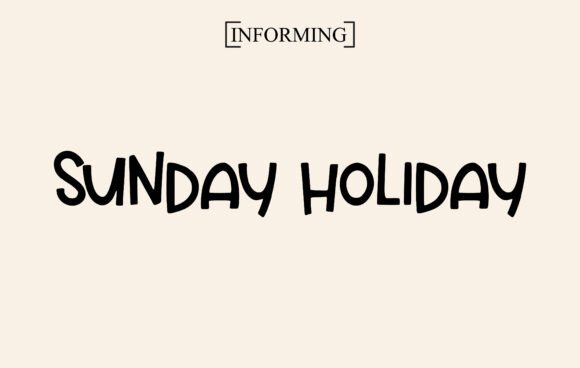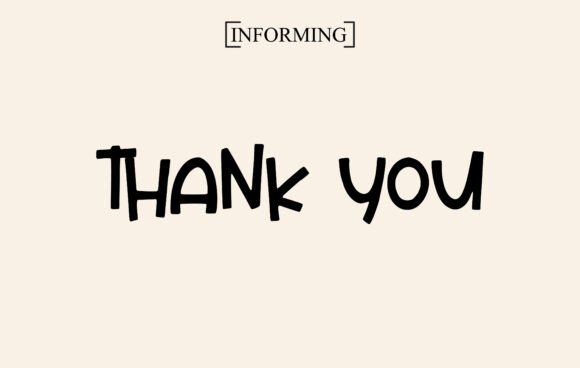
Introduction to Faithline Font
Do you remember that moment when a font perfectly captured the essence of your creative project and took it to the next level? For designers, this is a moment of pure joy and satisfaction. It’s the result of hours of brainstorming, experimenting, and searching for the perfect design resource. Today, we’re excited to introduce you to the Faithline Font, a true favorite that has the potential to elevate your creative ideas to new heights.
With its legibility and versatility, the Faithline Font is perfect for various designs, from magazine headlines to social media posts, and even wedding invitations. Its high quality and transparent background make it a valuable asset for designers looking to create stunning visual content. And the best part? You can download it for free, making it an accessible design resource for creatives of all levels.
Key Features of Faithline Font
- High-quality design resource ideal for various creative projects, including digital art and graphic design.
- Features a transparent background, making it easy to overlay on images and other design elements.
- Designed with a unique aesthetic, offering a distinctive touch to any creative project.
- Perfect for designers seeking a high-quality, versatile font that can be used across multiple design platforms.
Honest Review: Faithline Font
I recently had the opportunity to work with the Faithline Font, and I must say it’s been a game-changer for my creative projects. This font is a fantastic design resource that offers a high-quality, elegant aesthetic that’s perfect for anything from logos to headings.
What works well: ✨ The Faithline Font has a beautiful, modern design that’s sure to elevate any project. The font is available for free download, which is a huge bonus. The transparent background makes it easy to customize and use in a variety of contexts. The font also comes in a range of weights and styles, making it versatile and easy to work with.
Limitations: ⚠️ While the Faithline Font is a great resource, it’s not without its limitations. The font may not be suitable for very small text sizes, as the characters can become slightly pixelated. Additionally, some users may find the font to be a bit too modern or trendy for certain projects.
Overall, I’m thoroughly impressed with the Faithline Font. It’s a high-quality design resource that’s perfect for any creative project. I’ve already used it in a few projects, and I’m confident I’ll be using it again in the future.
- Range of weights and styles
- Perfect for logos, headings, and more
To get the most out of Faithline Font, use it consistently throughout your design project to create a cohesive look. Experiment with different font sizes and styles to add visual interest and emphasis to your text. The Faithline Font is also a great choice for creating custom typography and graphic elements.
The Faithline Font is ideal for a variety of creative projects, including branding, marketing materials, and digital designs. Its high quality and versatility make it a valuable design resource for any project, from simple documents to complex graphics and presentations.